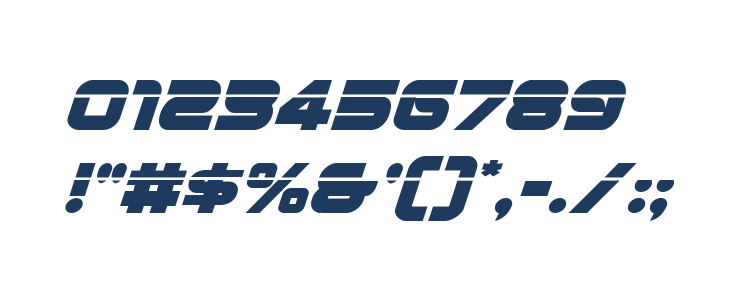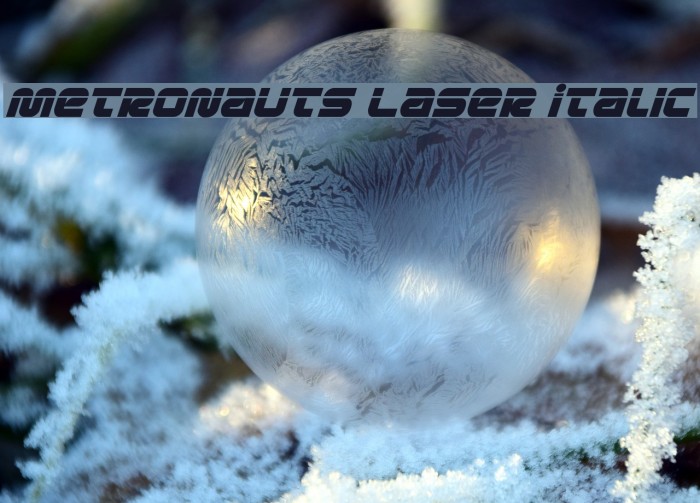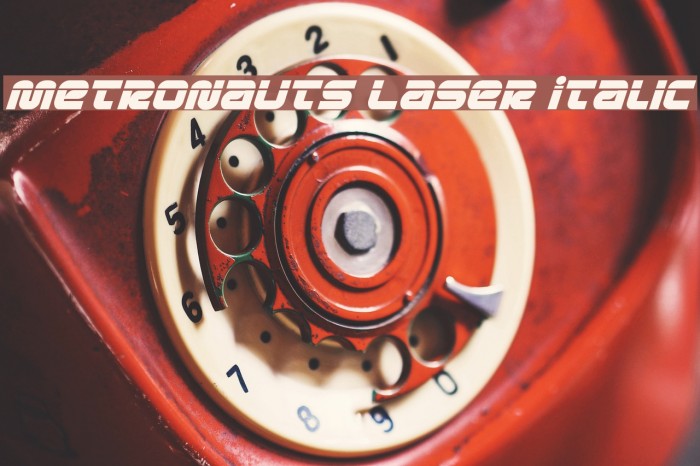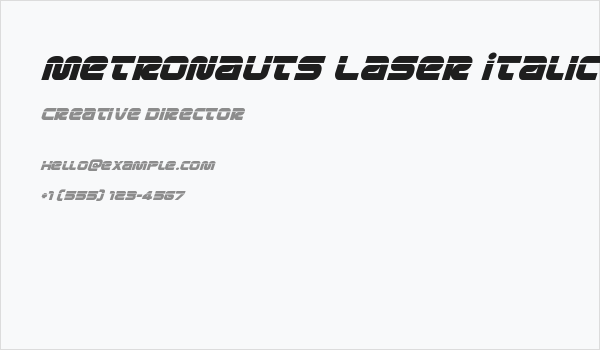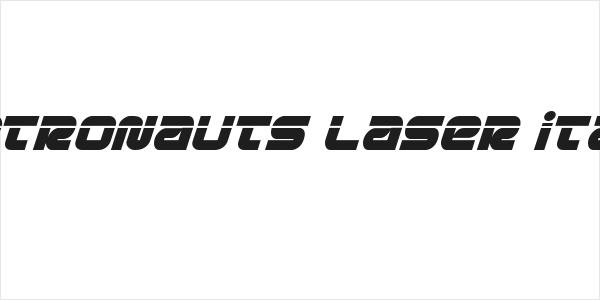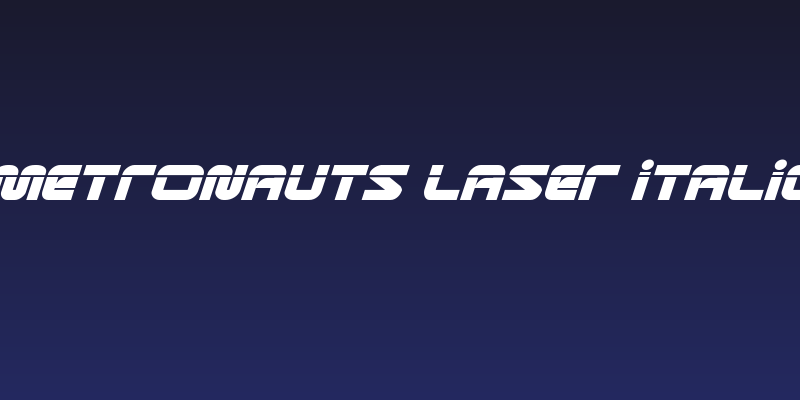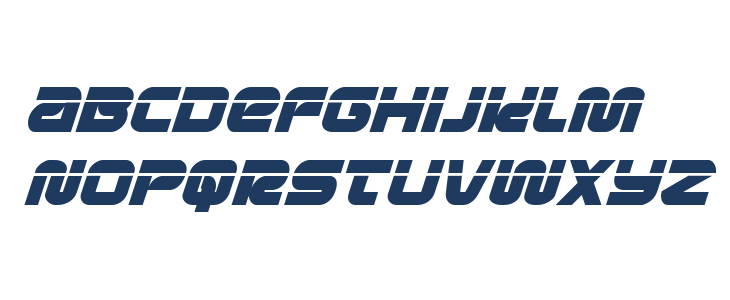
Metronauts Laser Italic Font
Metronauts Laser Italic Description
This font features a futuristic and dynamic design with a strong emphasis on angular and geometric shapes. The characters are bold and italicized, giving them a sense of motion and speed. The strokes are thick and consistent, creating a uniform appearance across all letters and numbers. The font has a modern and edgy feel, making it suitable for projects that require a contemporary and high-tech look. The special characters are designed to match the overall style, maintaining the bold and angular aesthetic.
| Proposed Projects | Ideal for sci-fi themed projects, tech-related branding, video game titles, and futuristic posters. |